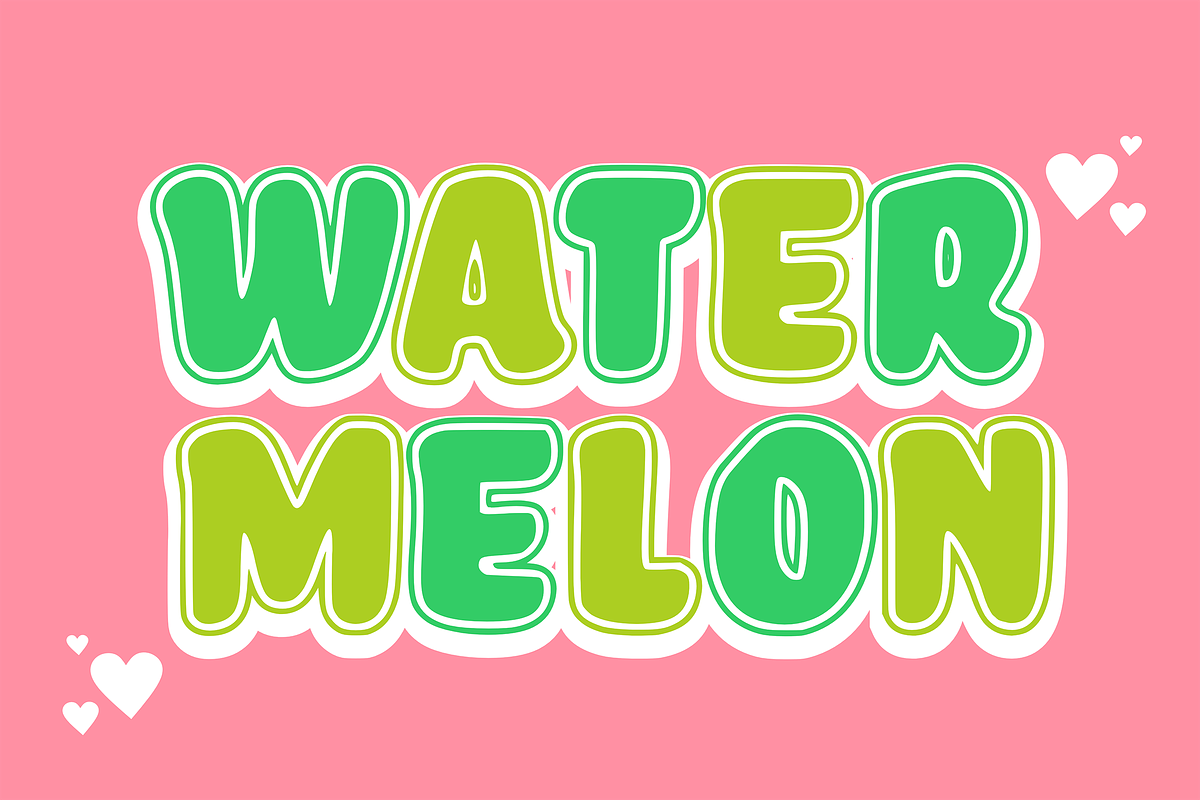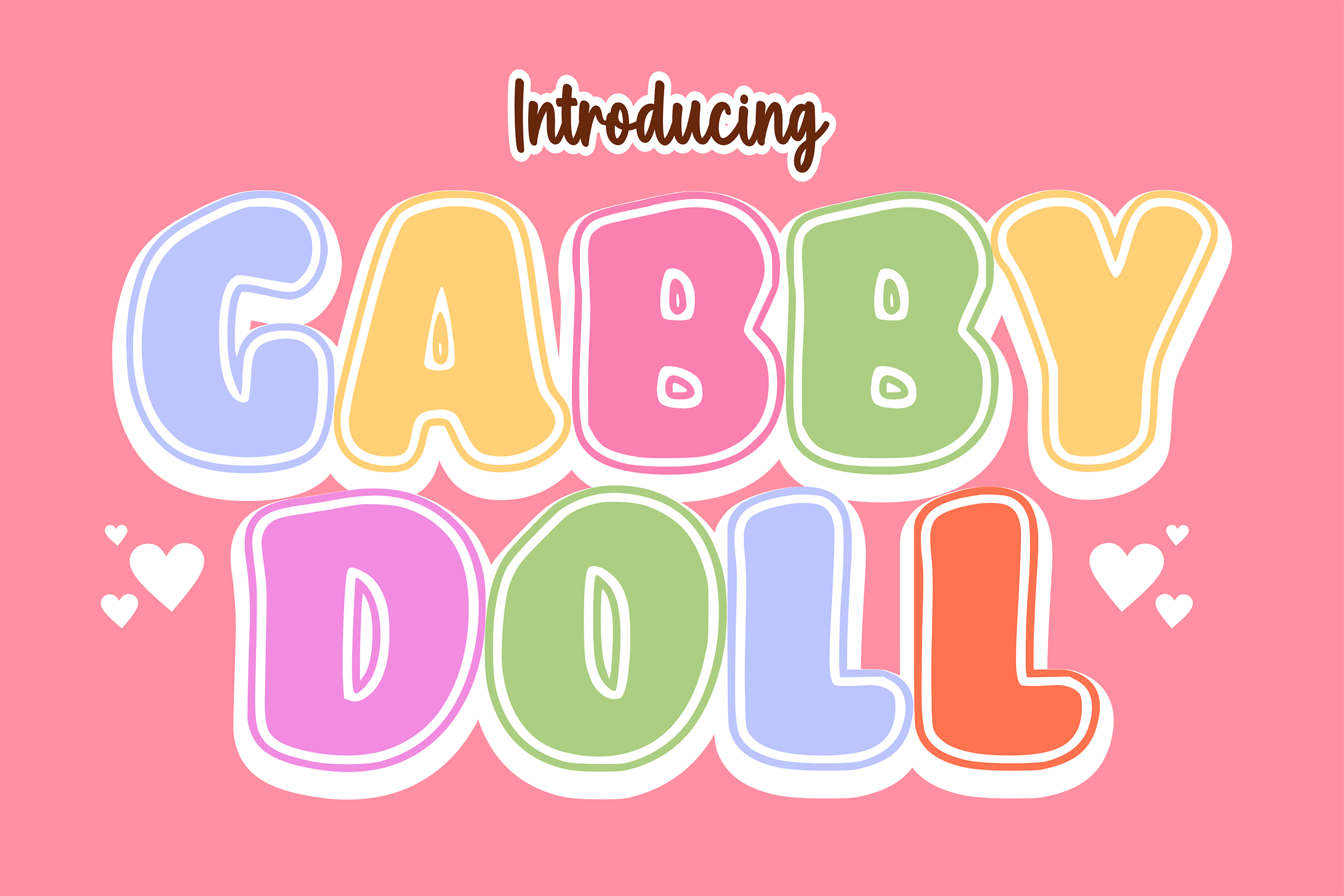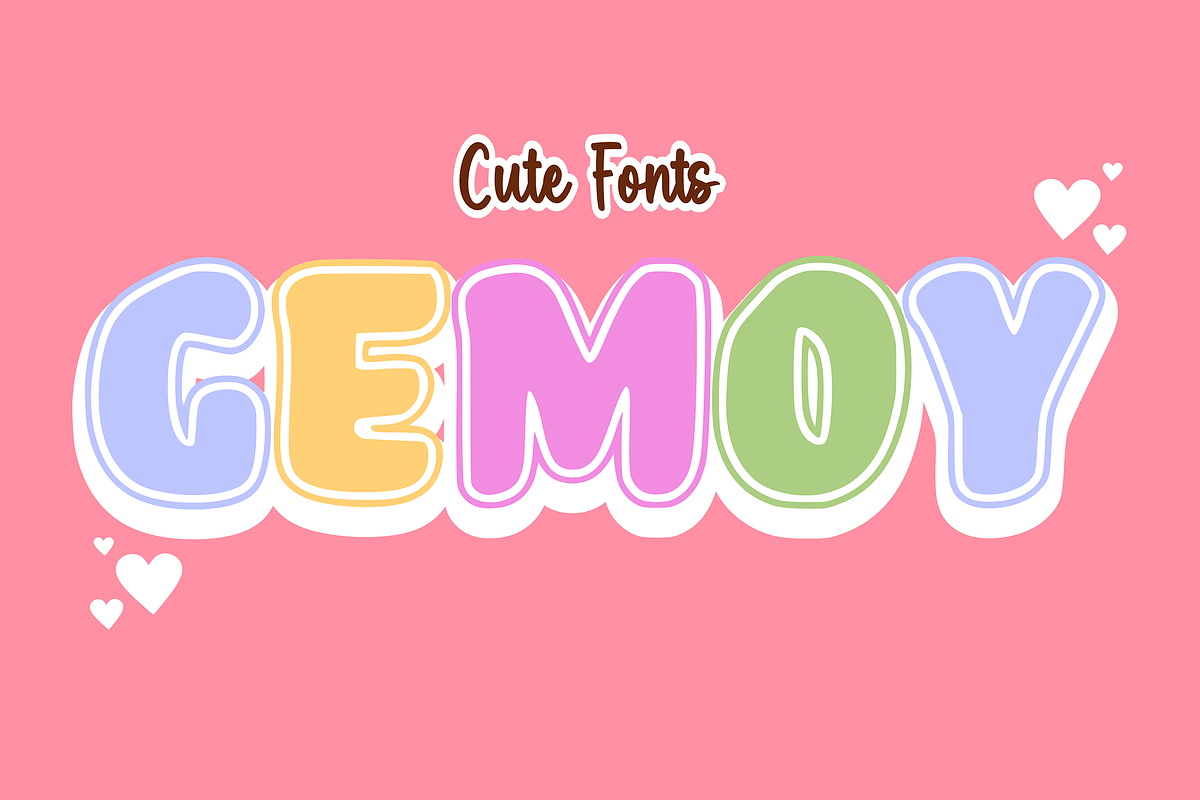
Gabby Doll - Kids Font Types
Gabby Doll is a modern and bold retro bubble display font. This font is ready to be used in any project. Perfect for logos, stickers, packaging designs, Cricut projects, headlines, brand identities, t-shirt or apparel industry, posters, magazines, books, YouTube, Instagram, websites, or any other creative design project you may have.